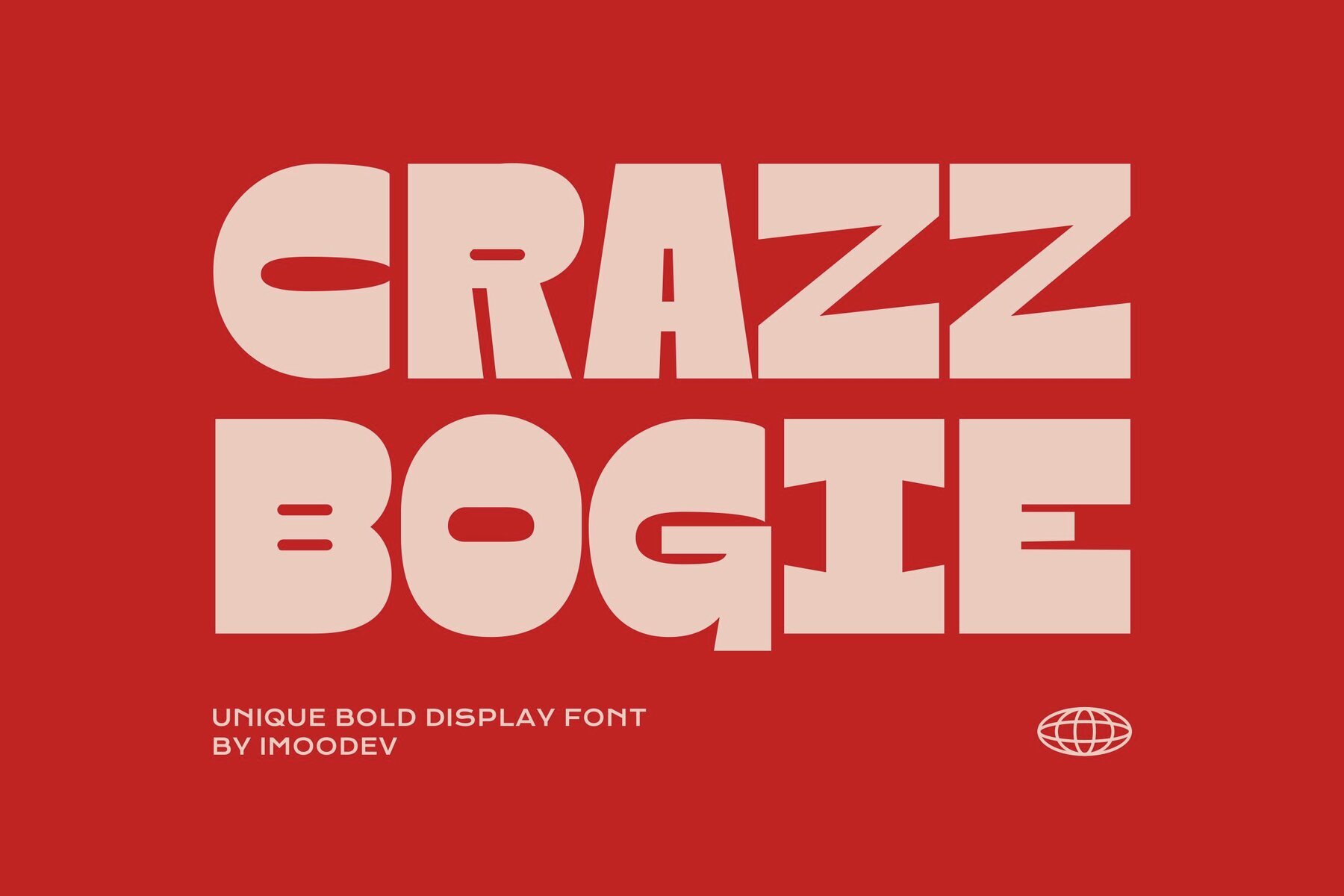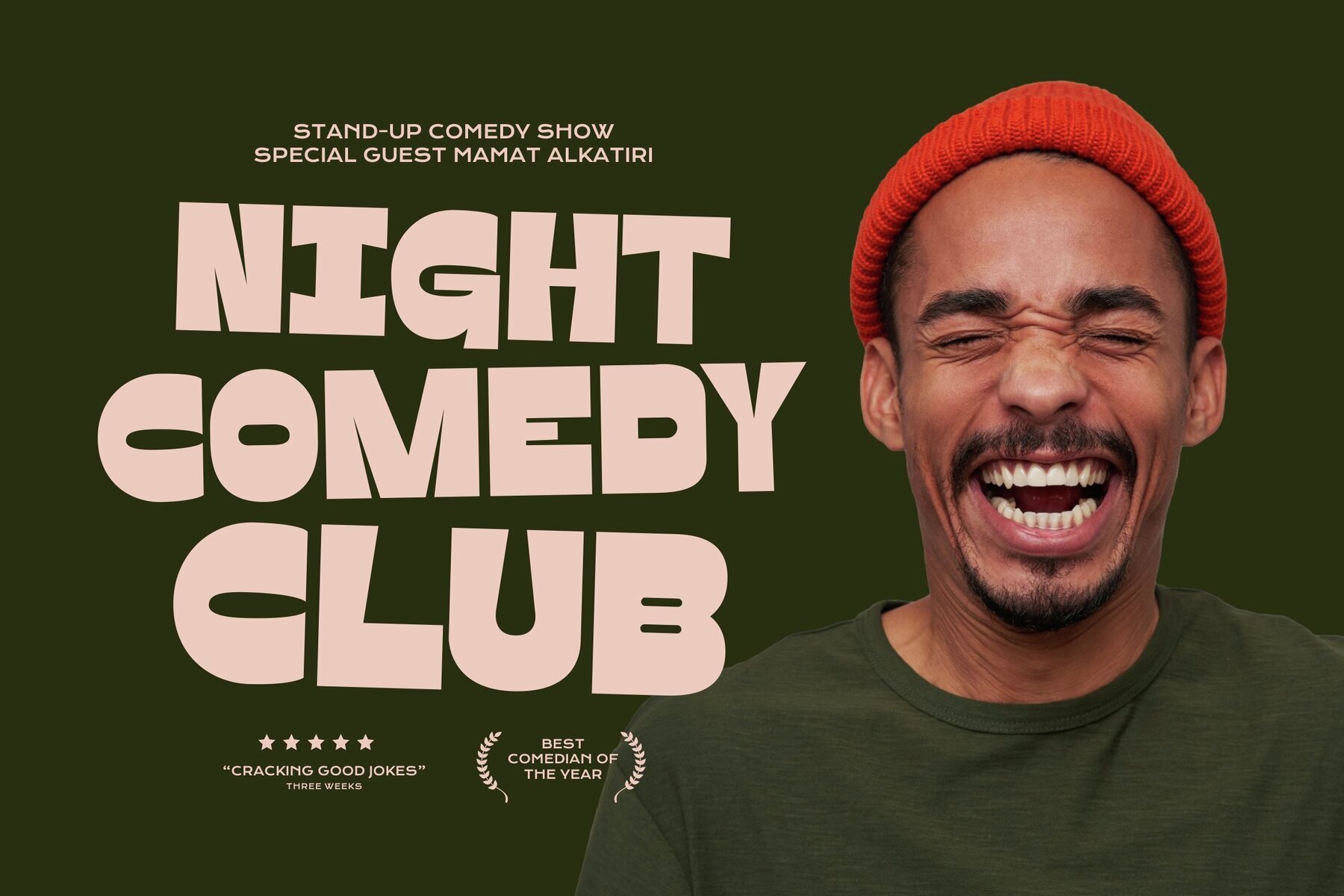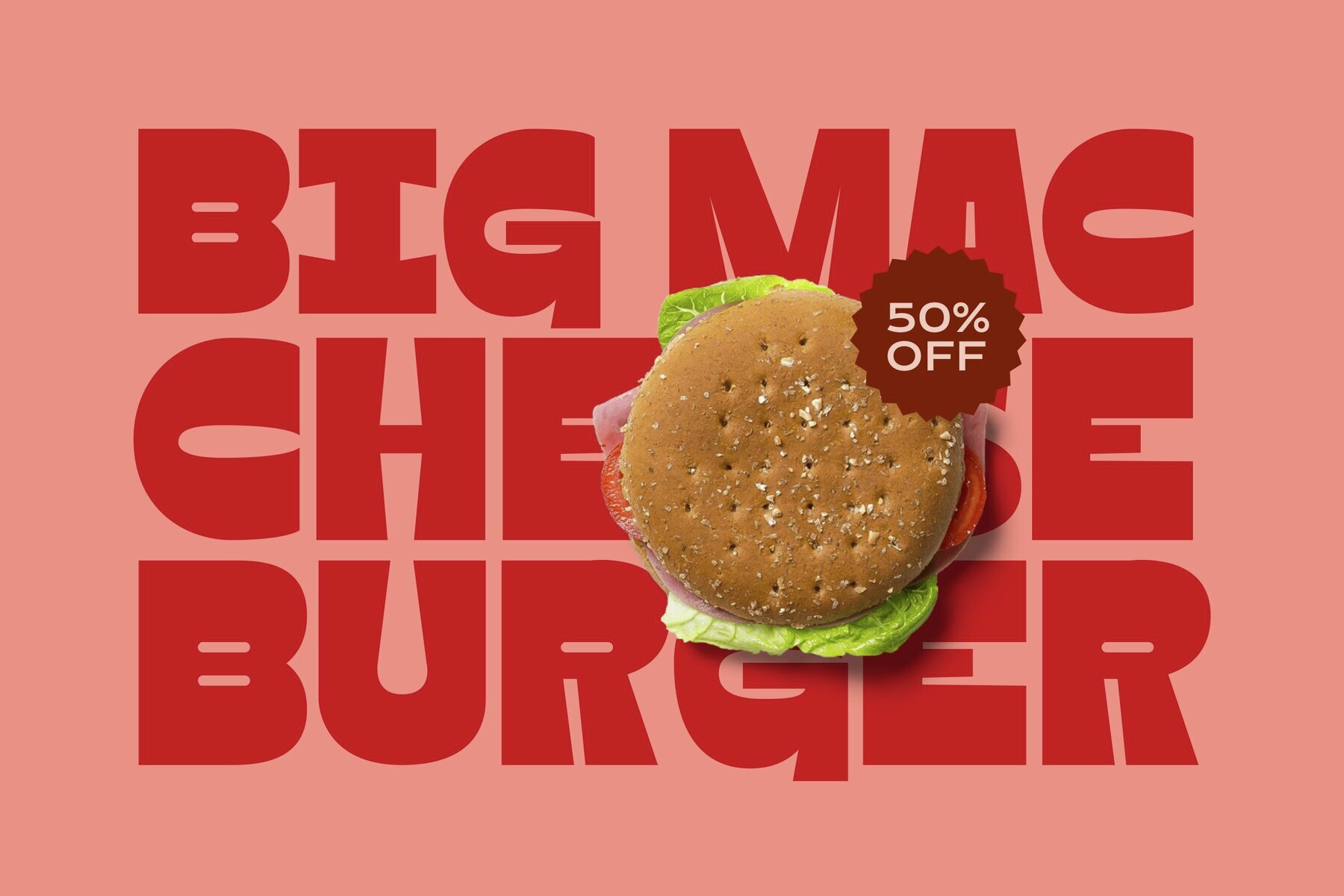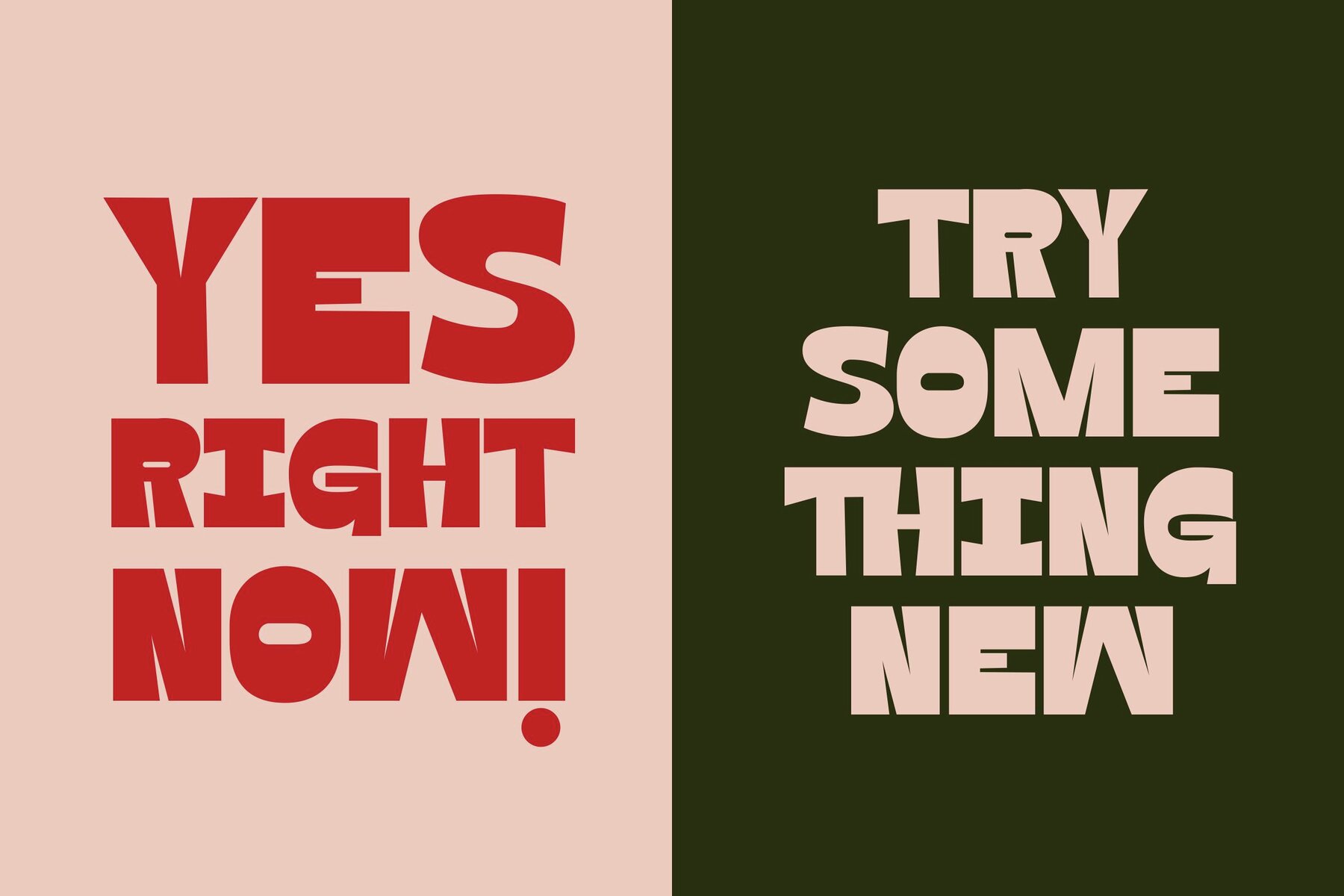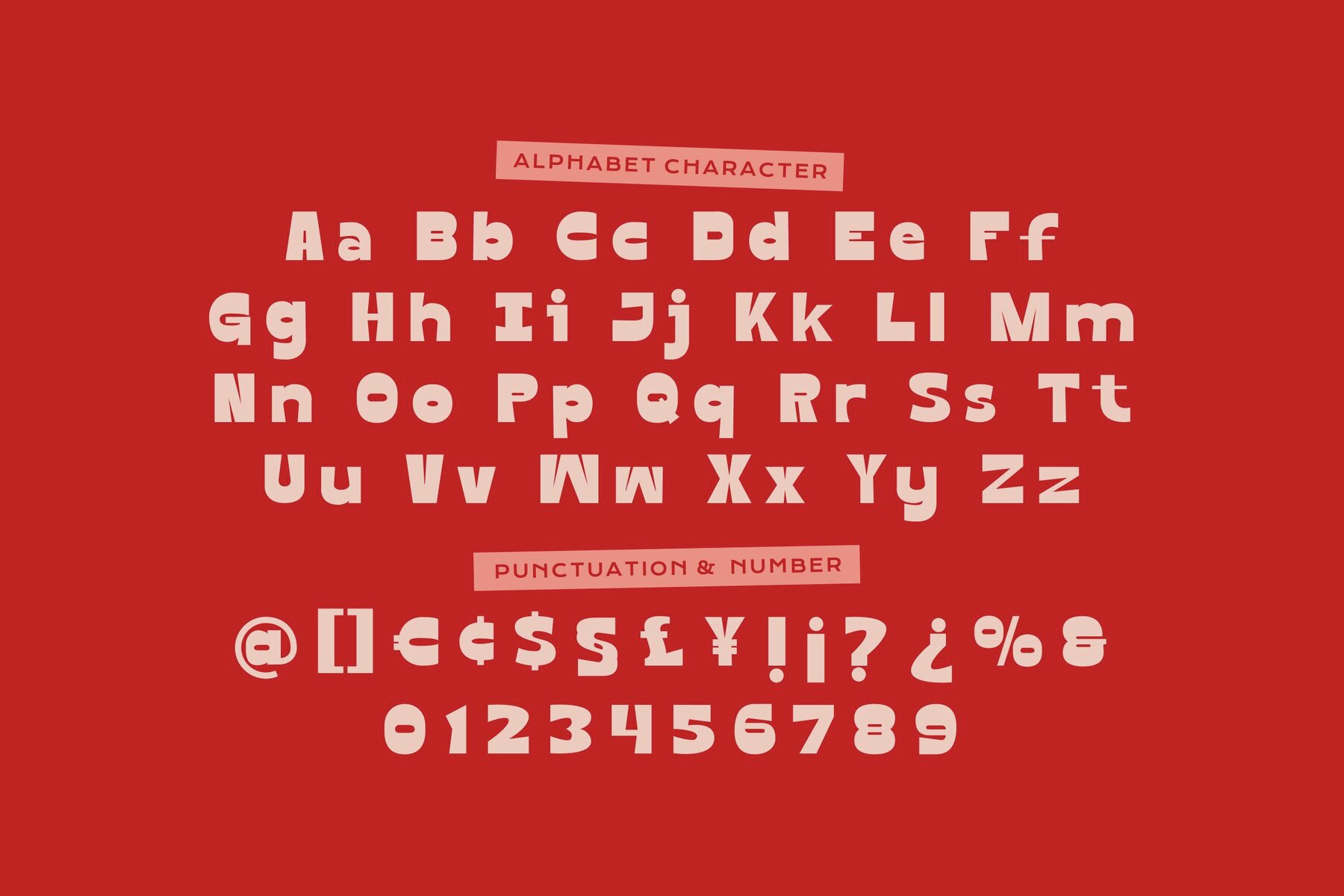
Crazy Bogie Font
Crazy Bogie Regular
Crazy Bogie stands out as a bold display typeface designed to capture attention with its energetic retro character. Built from thick geometric blocks, each letter offers unexpected angles, tight counters, and uneven cuts. The handmade feel gives every character a unique presence, making layouts more engaging and memorable. Versatile and attention-grabbing, Crazy Bogie is suited for both digital and print applications. Use it for headlines, posters, packaging, event titles, or branding that demands visual impact. It works especially well for comedy and event posters, food brands, streetwear designs, kids’ products, classroom prints, and bold advertising projects.Crazy Bogie Bold Display Typeface